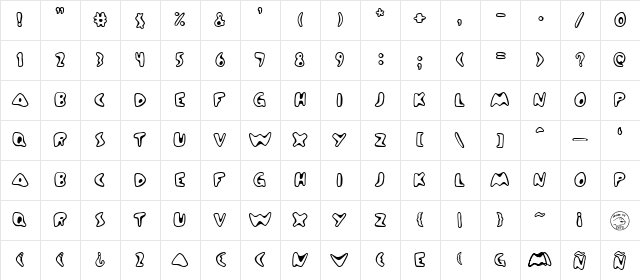
Zinc Boomerang Regular
| Foundry | [Divide By Zero] |
| Designer | Tom Murphy 7 |
Design Context for Zinc Boomerang Typeface
Zinc Boomerang is a composed and adaptable typeface that performs quietly and consistently across a wide range of design contexts.